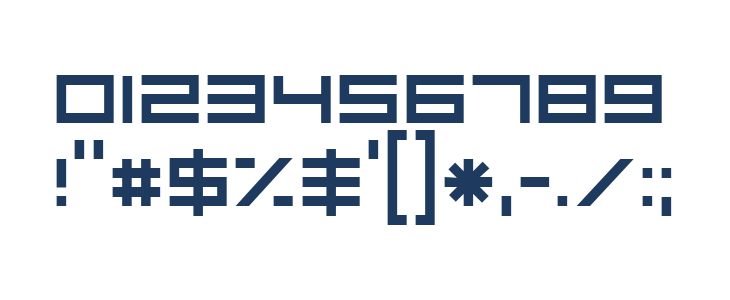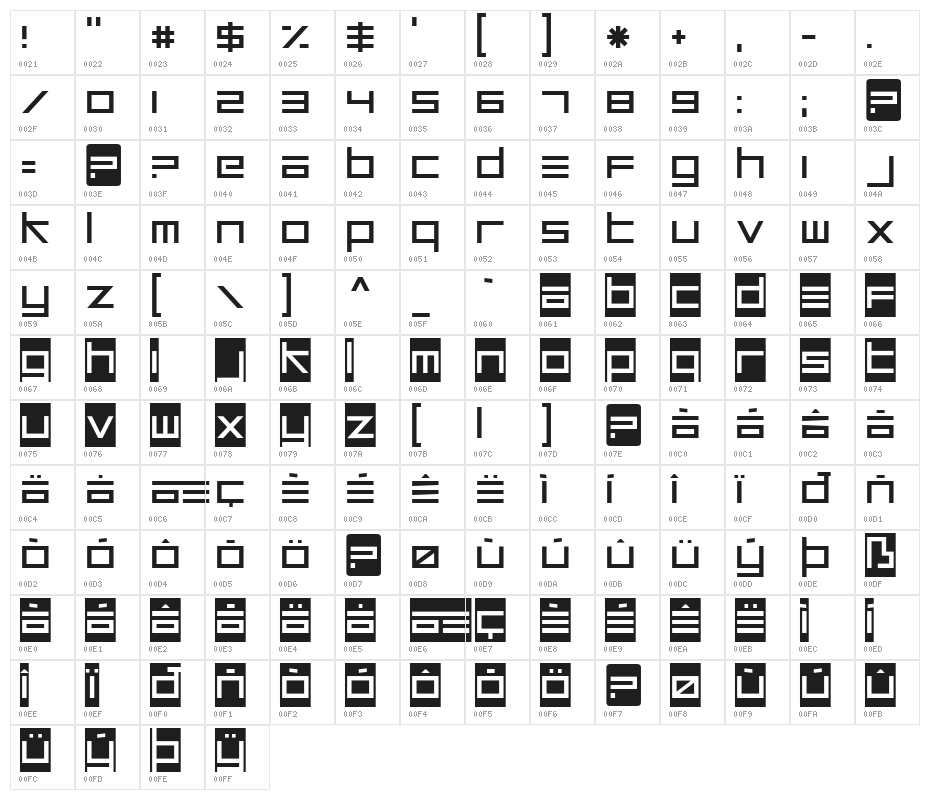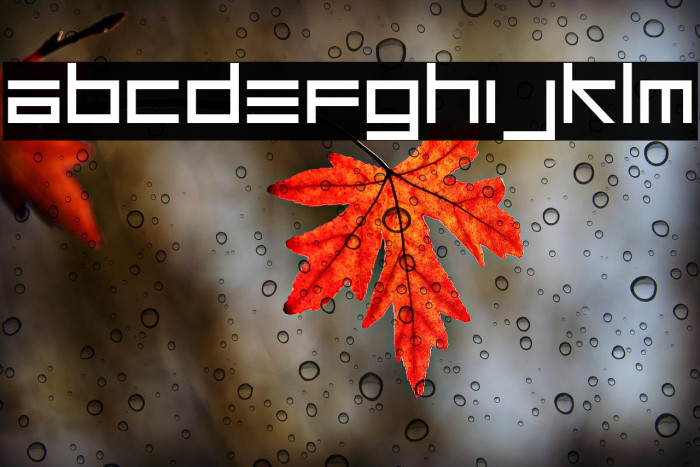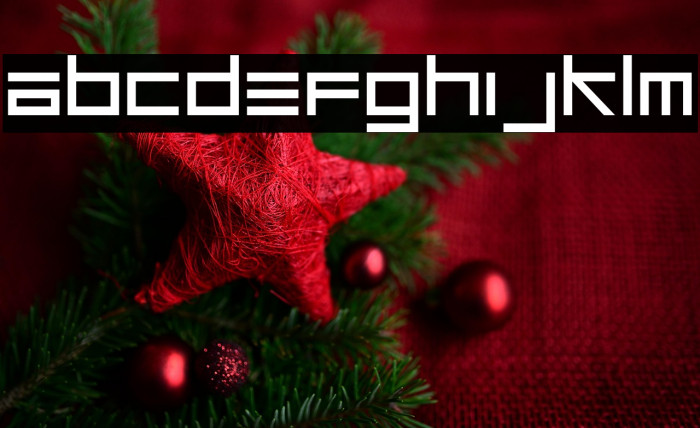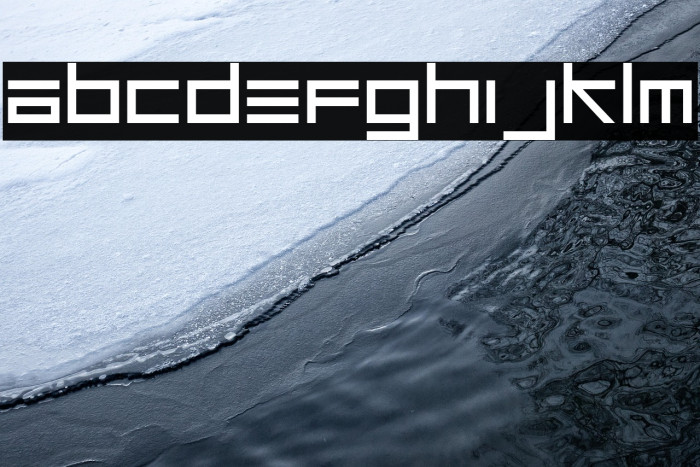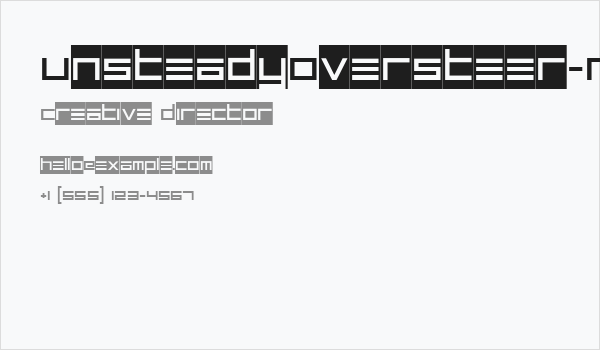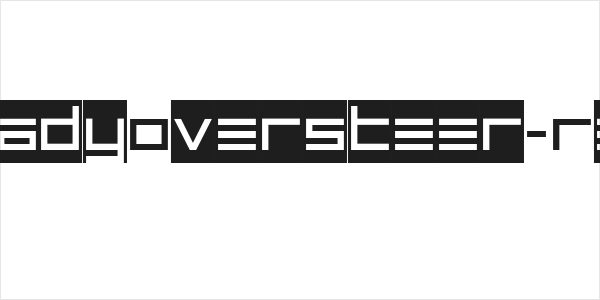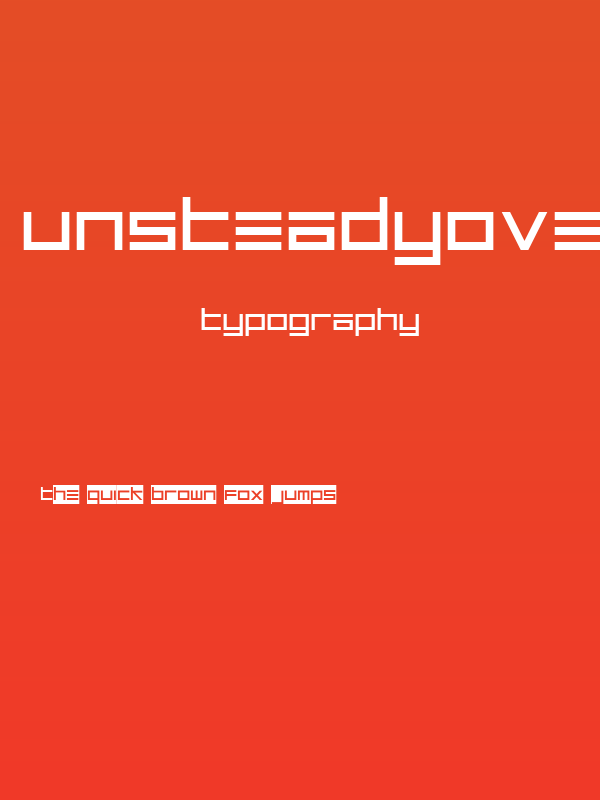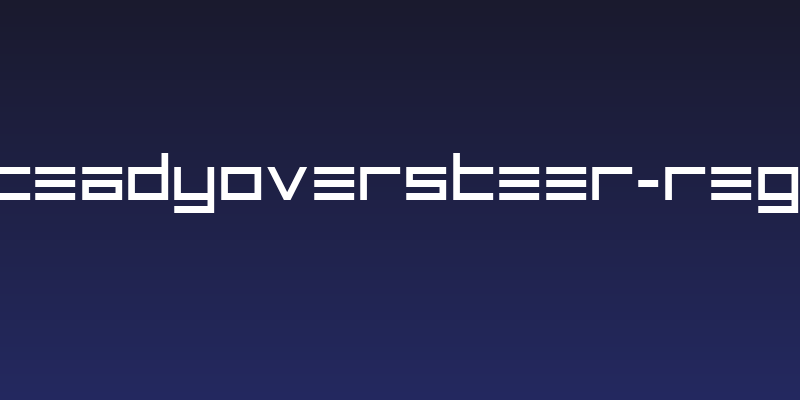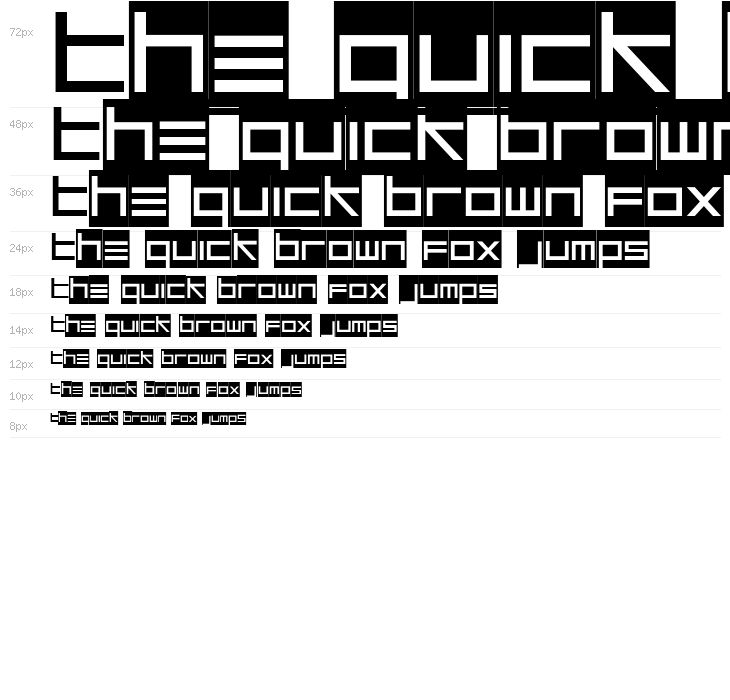
UnsteadyOversteer-Regular Font
UnsteadyOversteer-Regular Description
This font features a geometric and futuristic design with a strong emphasis on straight lines and sharp angles. The characters are constructed with a consistent thickness, giving a uniform appearance across all letters and numbers. The uppercase and lowercase letters share similar structural elements, enhancing the cohesive look. The numerals are distinct and align well with the overall style, maintaining the geometric theme. Special characters are creatively designed, adding a unique flair to the font. The overall aesthetic is modern and tech-inspired, suitable for projects that require a bold and innovative look.